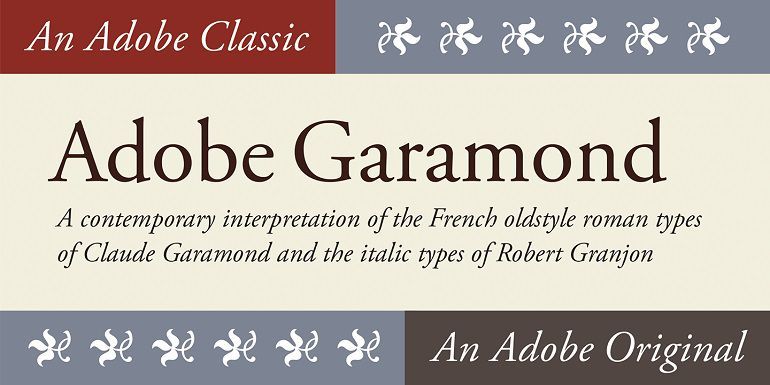
Adobe Garamond Font Family
Adobe Garamond™ was designed by Robert Slimbach in 1989. The roman weights were based on the true Garamond, and the italics on those of punchcutter Robert Granjon.
This font has been expanded to include small caps, titling caps, expert fonts, and swash caps, which were typical in the fifteenth and sixteenth centuries.